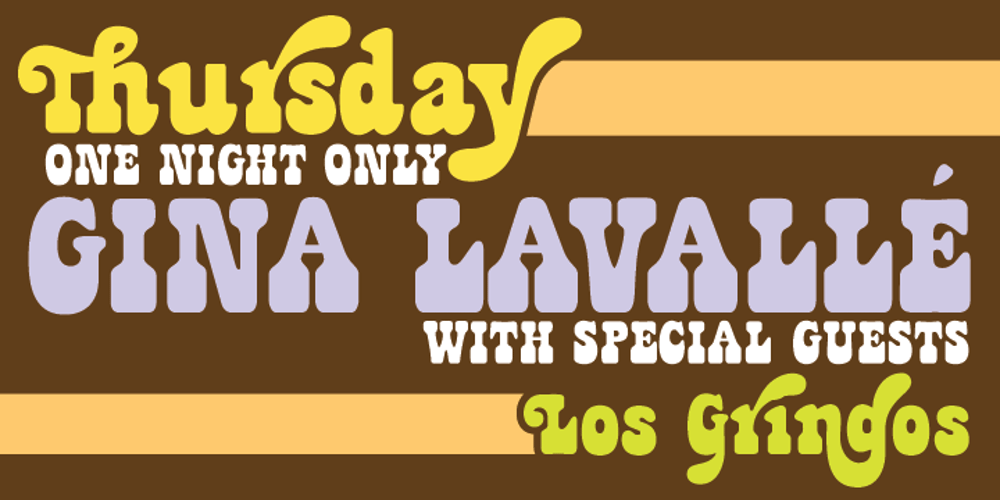
Jackpot
Jackpot font
Jackpot Font Family was designed by Patrick Griffin and published by Canada Type. Jackpot contains 6 styles and family package options. What happens when you mix a groovy hippy font idea (like Canada Type’s Janice for instance) with a Western concept such as Playbill? You end up with a groovy hippy western font, of course! The idea is not new. It was quite common, but hardly ever used, in film type in the 1960s and 1970s. It is however, as far as we can tell, unique to digital type. The idea for Jackpot came from a photo type called Cooper Playbill, which as the name implies was simply a westernized version of Cooper Black. It is strange that the font designers of the 1980s and 1990s never found the attraction of such a concept. We think it’s simply marvelous and quite ideal for communicating special great American times and ideas. The recipe was simple: Follow Mr. Cooper’s big fat hippy idea, cowboy it with heavy slabs, give it true italics, then swash away at both for beautiful mixture. And there you have the bridge between groovy and all-American. There you have the country lover shaking hands with the rock and roll enthusiast. There you have your perfect substitute for the very overused Cooper Black. We like to think of Jackpot as “free love with a holster”. Please don’t ask us what this means. We could hardly explain it to ourselves. Eight year old Benjamin thought the swashes we made looked very “sweeping”, like someone using a broom, so we called them Jackpot Sweep instead of Jackpot Swash. Benjamin approves, we’re hoping. The Jackpot family is ideal for posters, signage, book covers, magazine ads, and plenty of other applications. If you’re creative and know how to use your imagination, you have just hit the Jackpot with this font family. Open Type enthusiasts should be very happy to know that the OT version of Jackpot comes in two fully-featured fonts, where the sweeps, alternates, ligatures, etcetera are stashed away in features for activation at the click of a button.